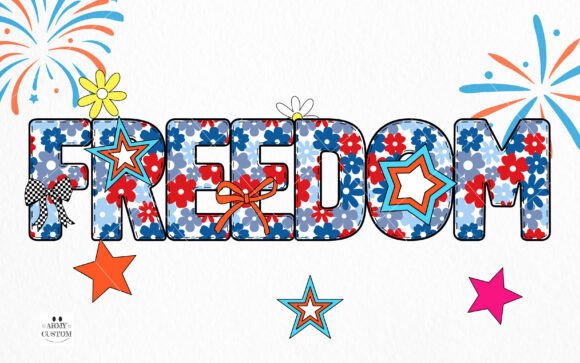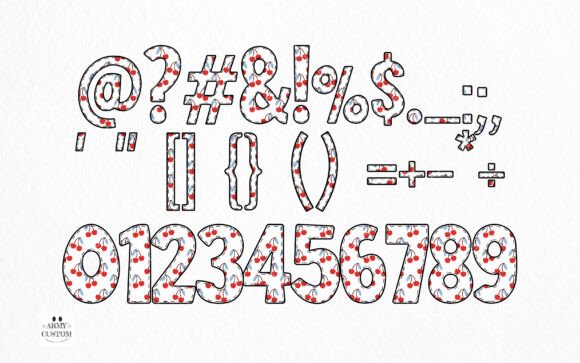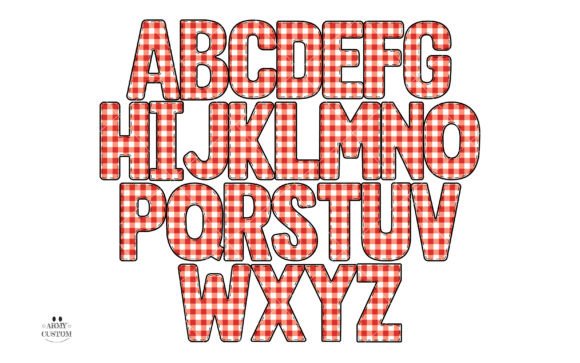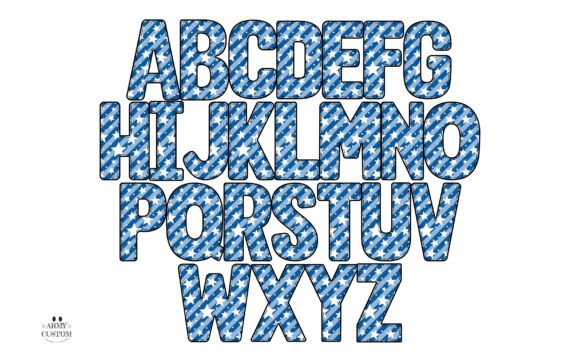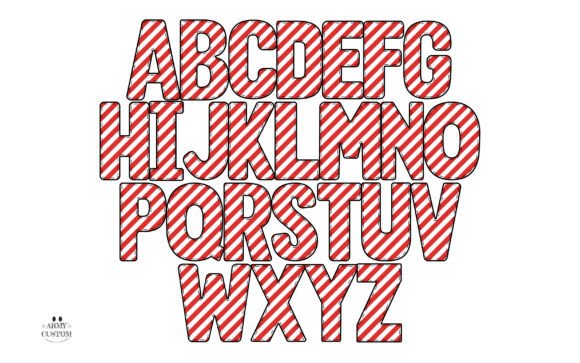
Introducing the American Coquette Font: A Patriotic Celebration in Typography
Are you looking for a font that embodies the spirit of American patriotism? Look no further than the American Coquette Font, a stunning typeface that captures the essence of Memorial Day and American celebrations. This font is a tribute to the Land of the Free, brought to life through typography. In this article, we’ll dive into the world of American Coquette Font, exploring its unique design, features, and compatibility with various design programs.
A Font that Embodies American Aesthetics
The American Coquette Font is a masterpiece of typography, uniquely designed to reflect the charm and spirit of American aesthetics. Every curve and line of this font is carefully crafted to evoke a sense of patriotism and freedom. Whether you’re working on a creative project, designing a patriotic poster, or crafting a Memorial Day card, this font is sure to infuse an unmatched sense of American pride into your work.
Key Features of American Coquette Font
- Unique Design: The American Coquette Font boasts a distinctive design that sets it apart from other fonts. Its curves and lines are carefully crafted to reflect the essence of American patriotism.
- Patriotic Spirit: This font is a tribute to the Land of the Free, capturing the spirit of American celebrations and Memorial Day.
- Compatibility: The black version of the font is compatible with Cricut Design Space and other cutting machines, making it perfect for crafters and designers.
- Color Version: The color version of the font is compatible with design programs such as PhotoShop, Illustrator, Silhouette, and Inkscape.
Technical Details and Compatibility
When it comes to using the American Coquette Font, it’s essential to understand its technical details and compatibility. The font comes in two versions: black and color.
Black Version
The black version of the font is compatible with Cricut Design Space and other cutting machines. This makes it perfect for crafters and designers who want to create intricate designs and cuts for their projects. Whether you’re working on a DIY craft, a custom sign, or a personalized gift, the black version of the font is the perfect choice.
Color Version
Tips for Using American Coquette Font
To get the most out of the American Coquette Font, here are some tips to keep in mind:
- Use it for Patriotic Projects: This font is perfect for patriotic projects, such as Memorial Day posters, Independence Day cards, and American-themed crafts.
- Experiment with Colors: While the black version of the font is perfect for cutting machines, the color version offers a range of possibilities for designers. Experiment with different colors and effects to create stunning designs.
The American Coquette Font is a stunning typeface that embodies the spirit of American patriotism. With its unique design, compatibility with various design programs, and tips for use, this font is perfect for designers and crafters looking to infuse their projects with a sense of American pride. Whether you’re working on a patriotic project, a DIY craft, or a custom design, the American Coquette Font is sure to be a valuable addition to your typography collection.